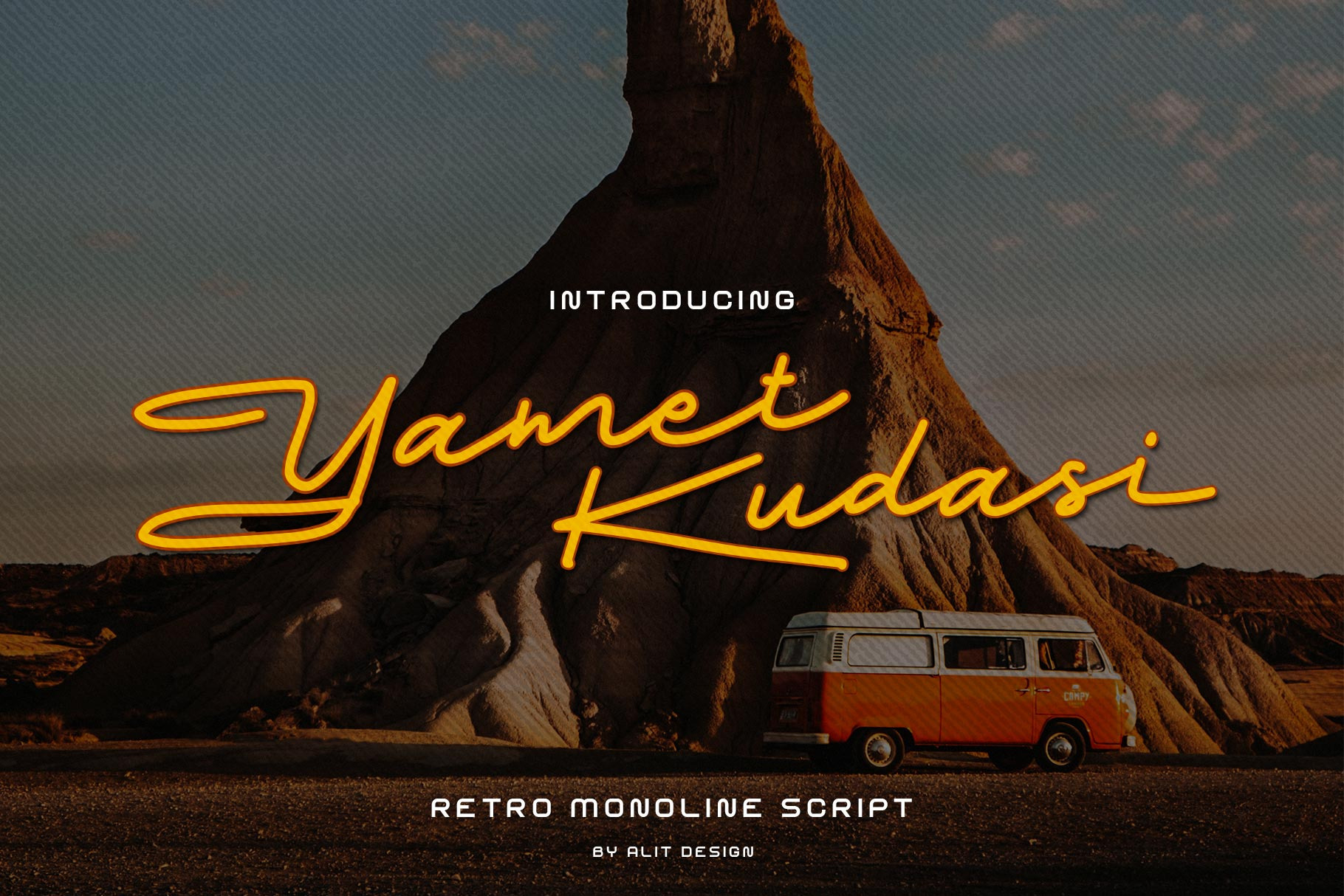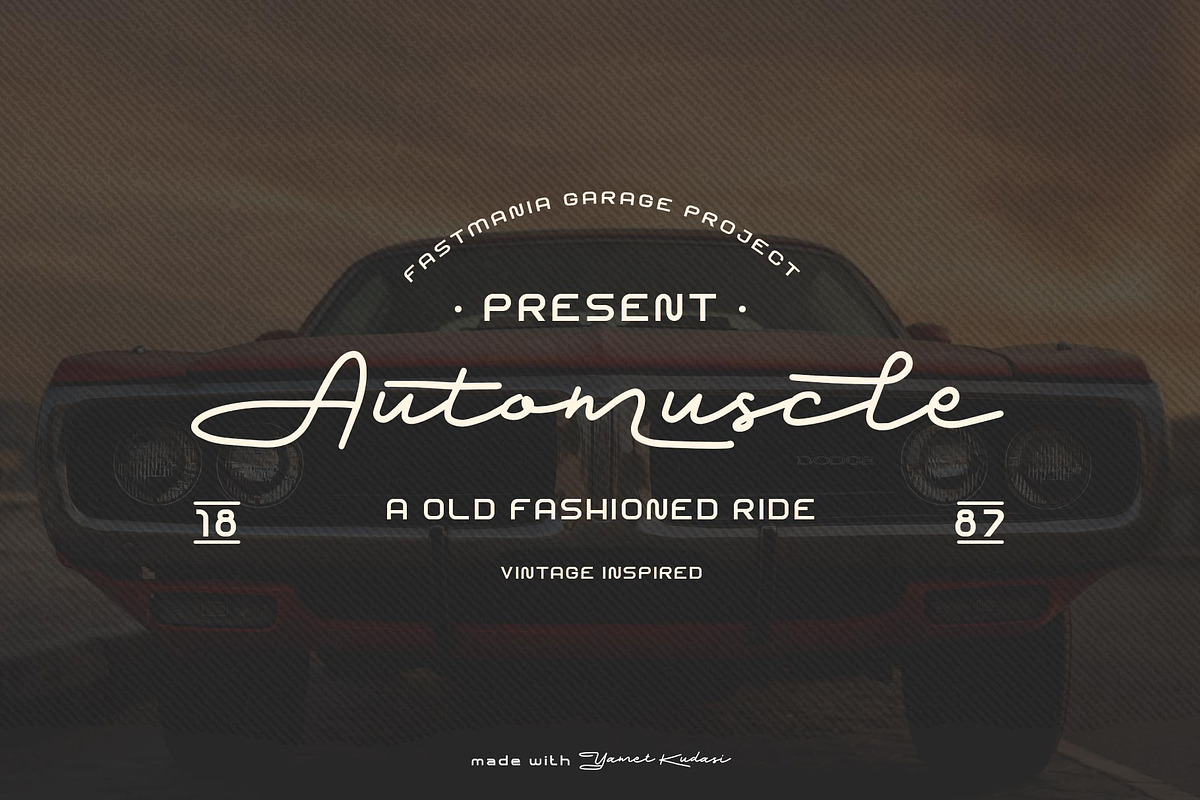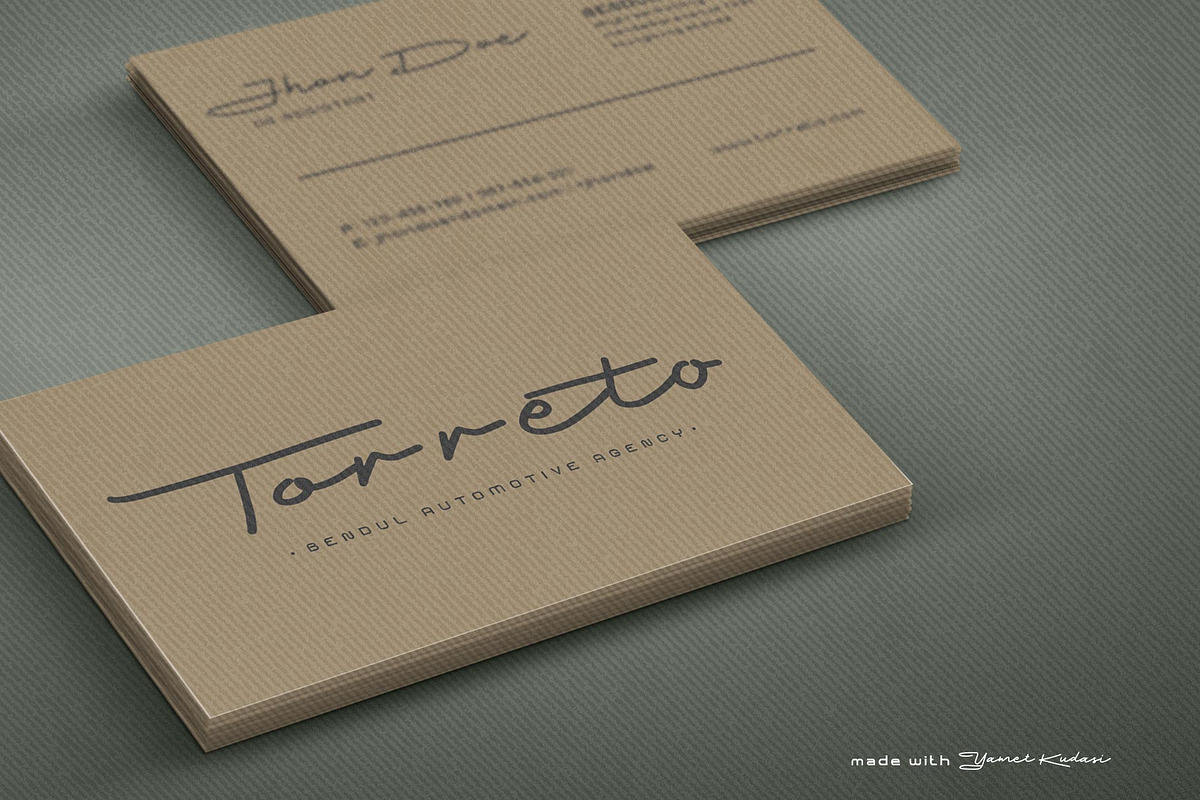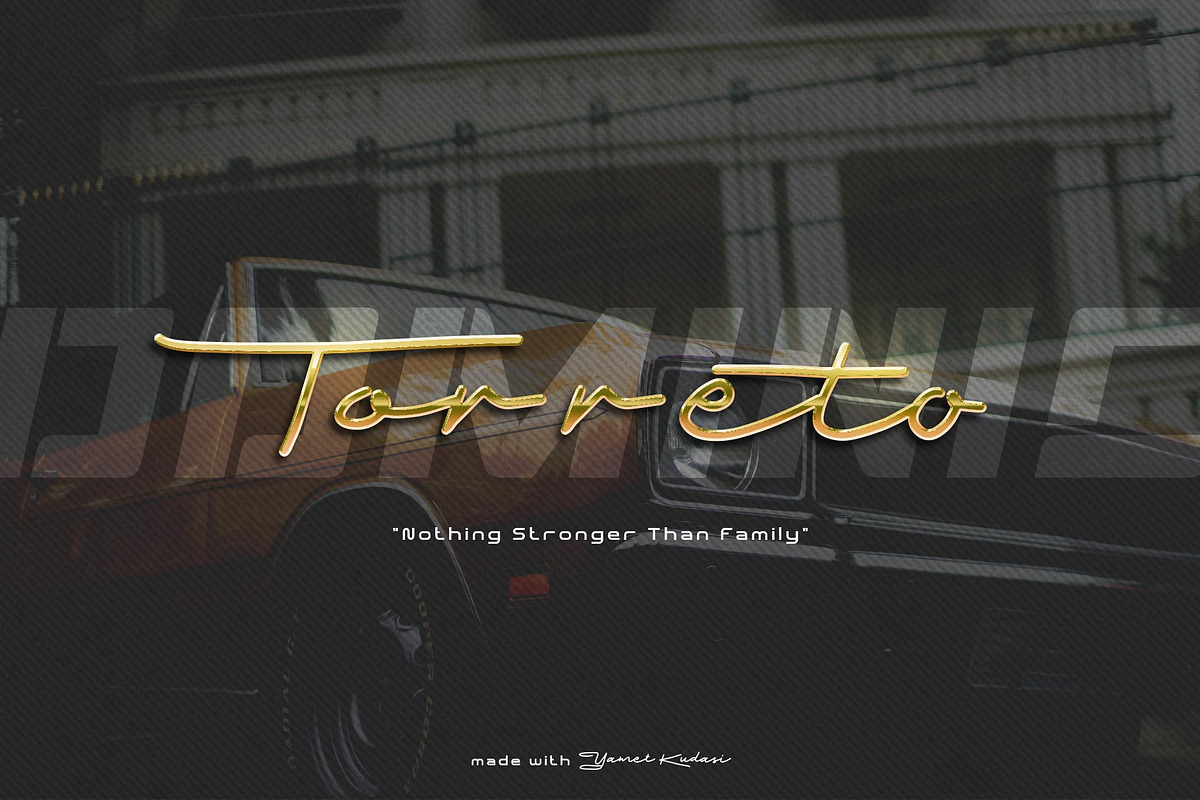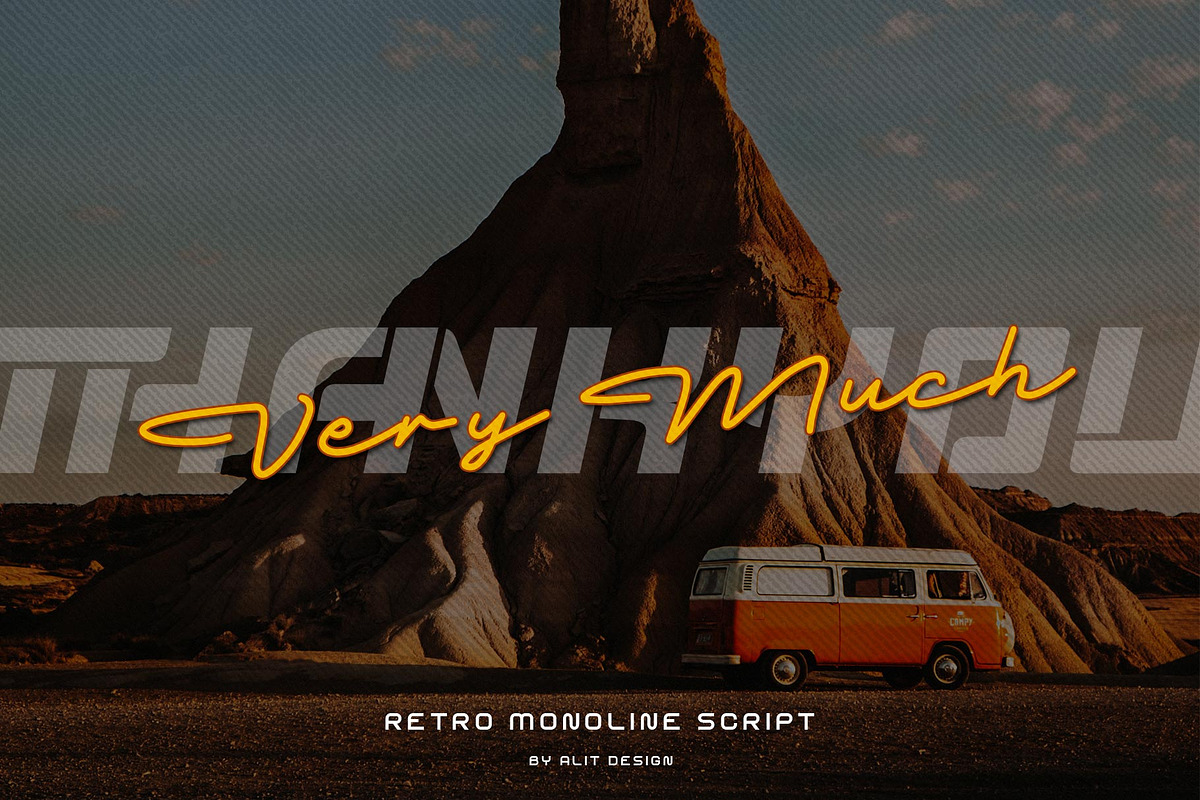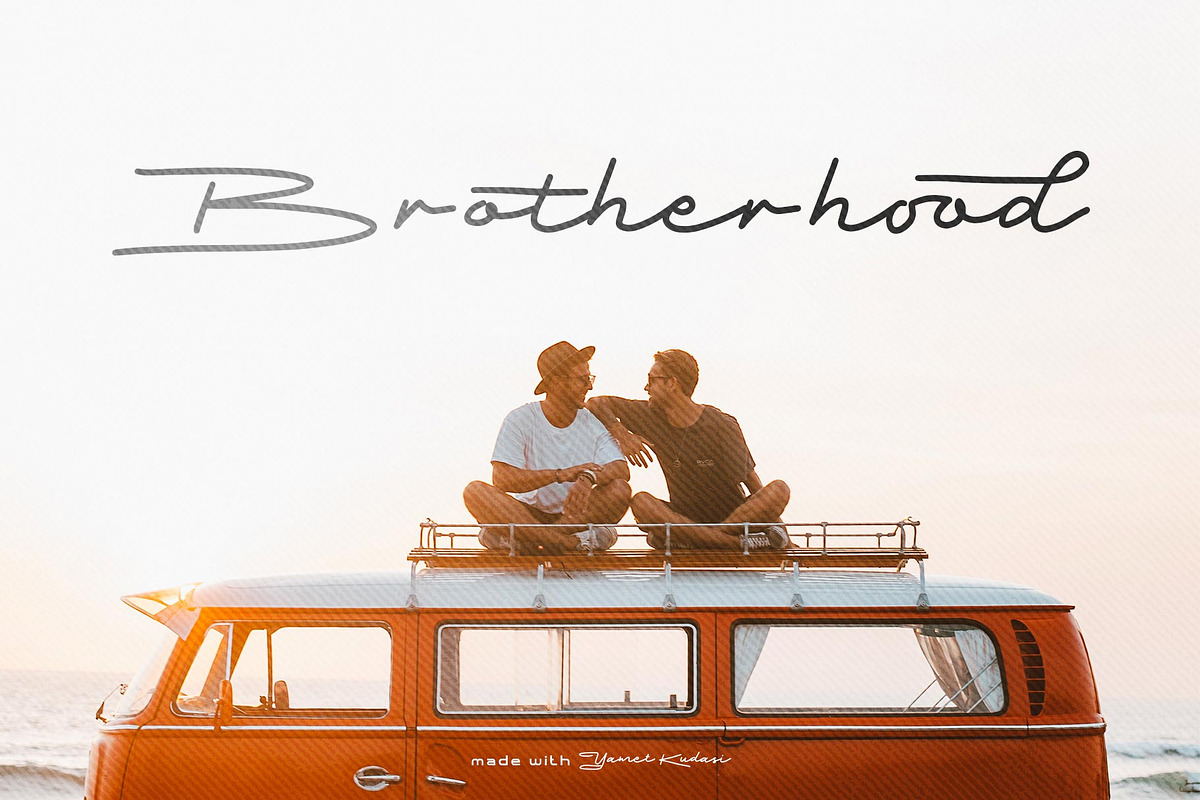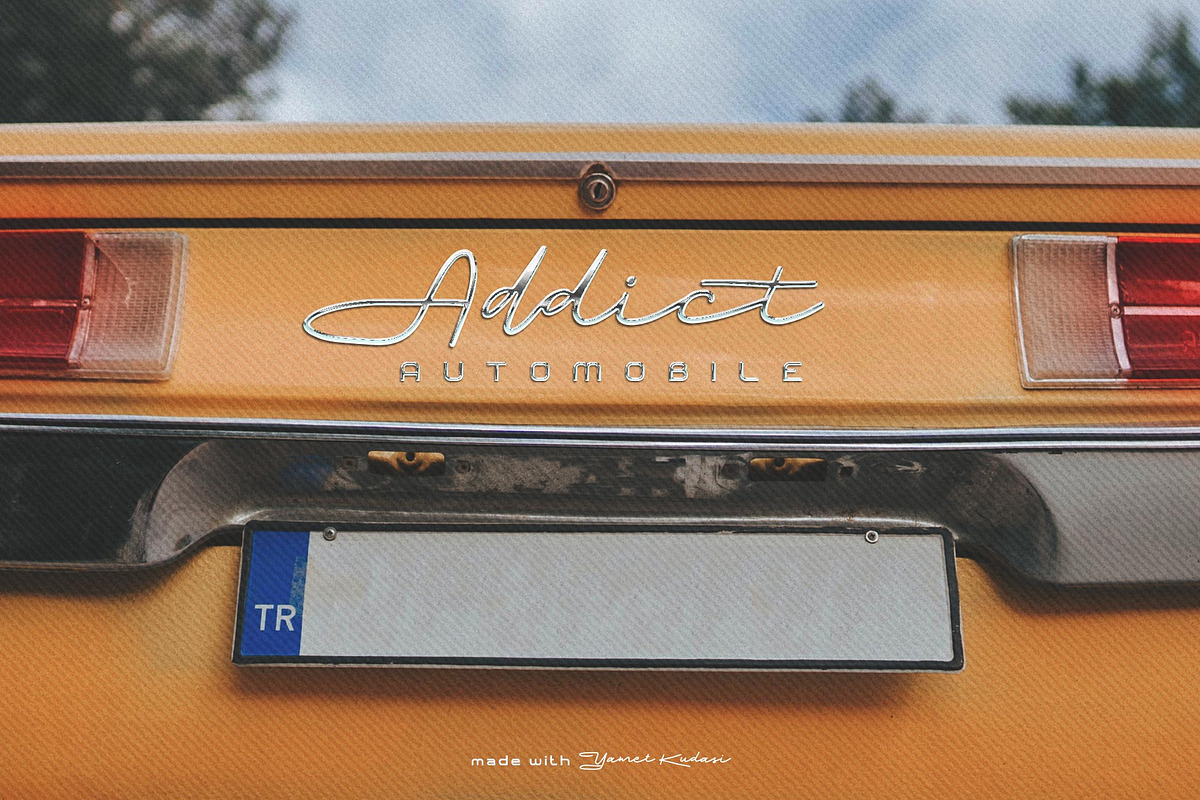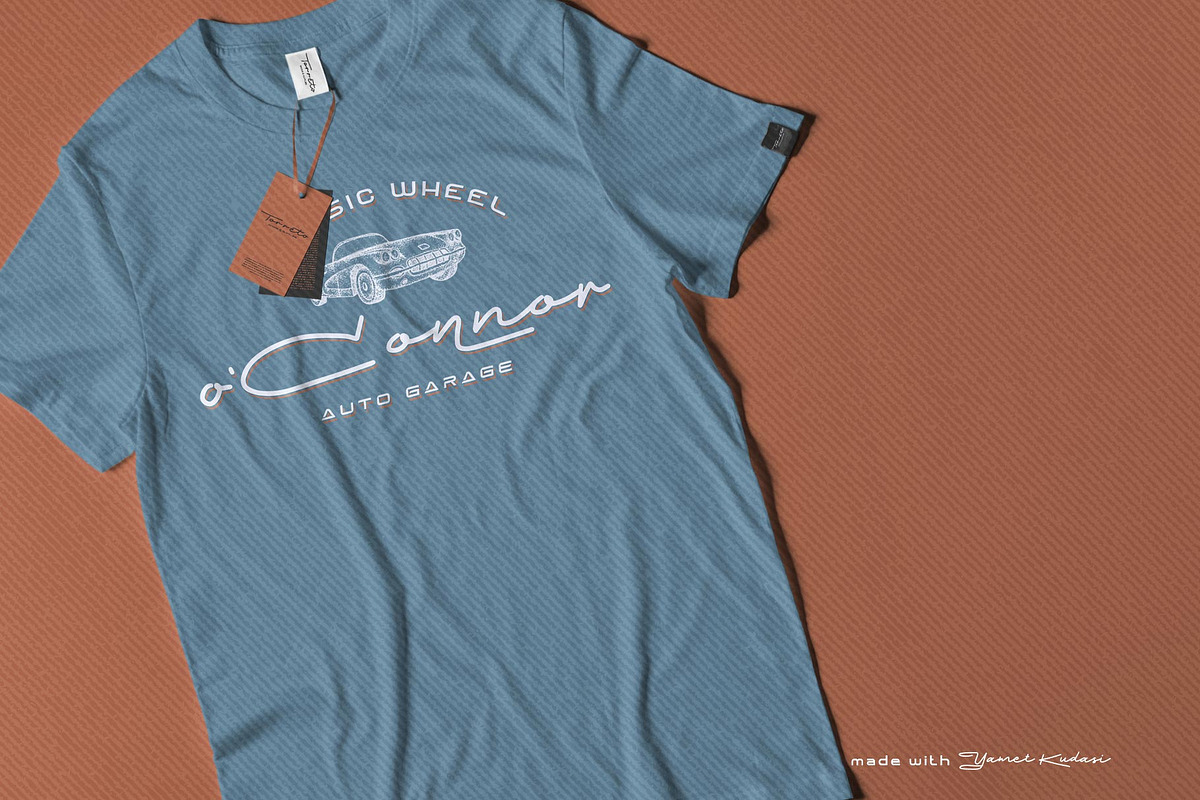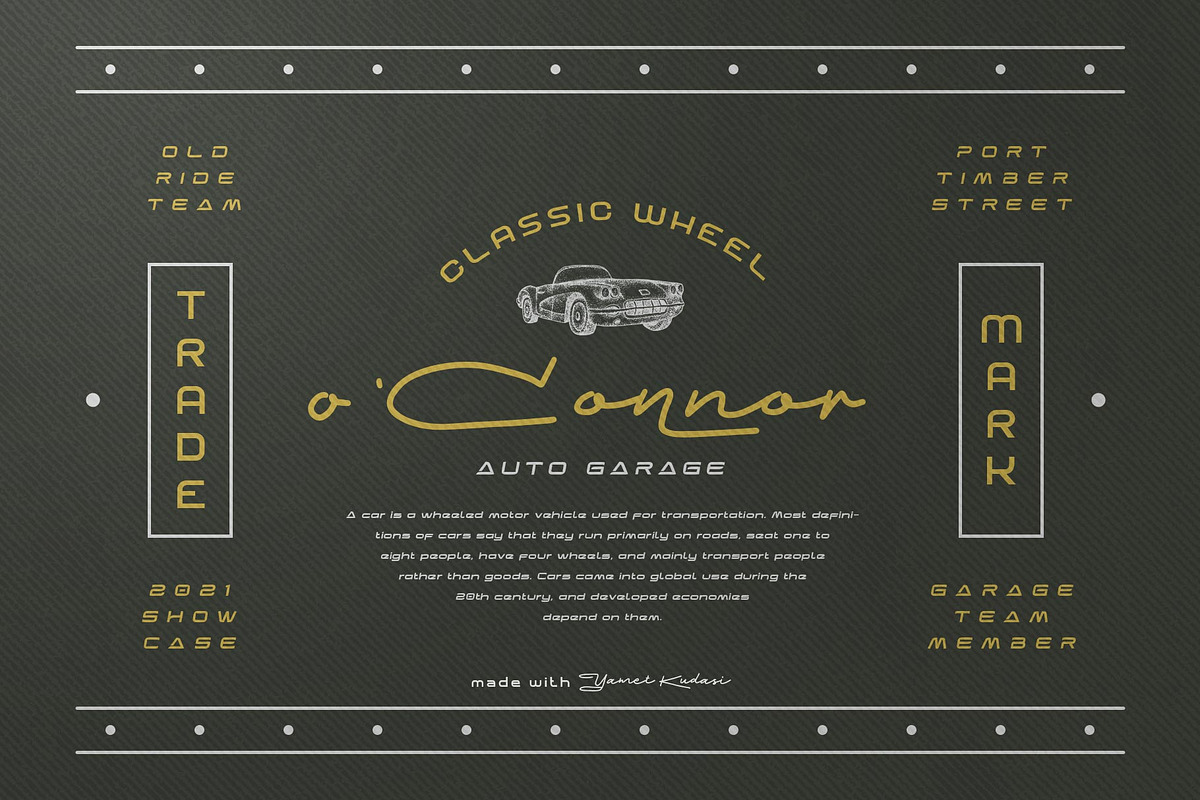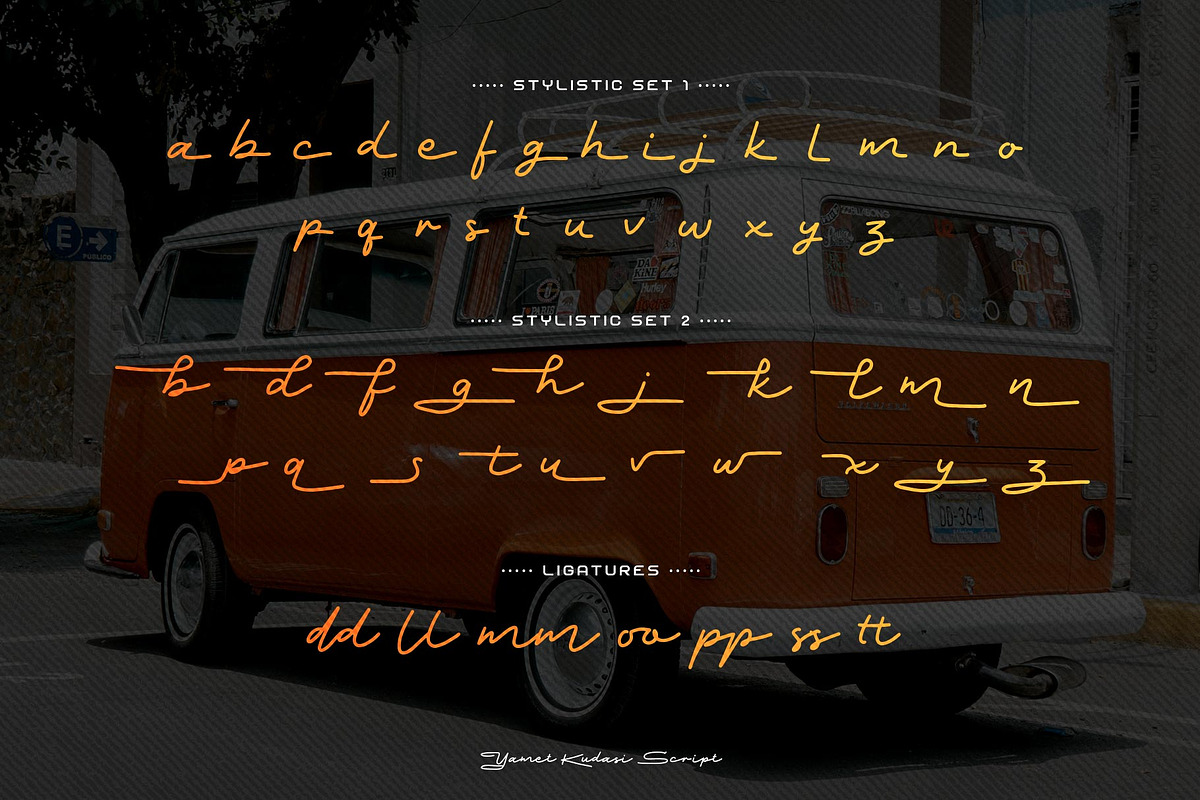
Yamet Kudasi Font
Introducing Yamet Kudasi Font
🏁The Yamet Kudasi Font 🏁 is inspired by retro script style with a dynamic and sporty monoline style. The Yamet Kudasi font is perfect for making designs with classic racing, fashion, sporty themes or for making logotype designs.